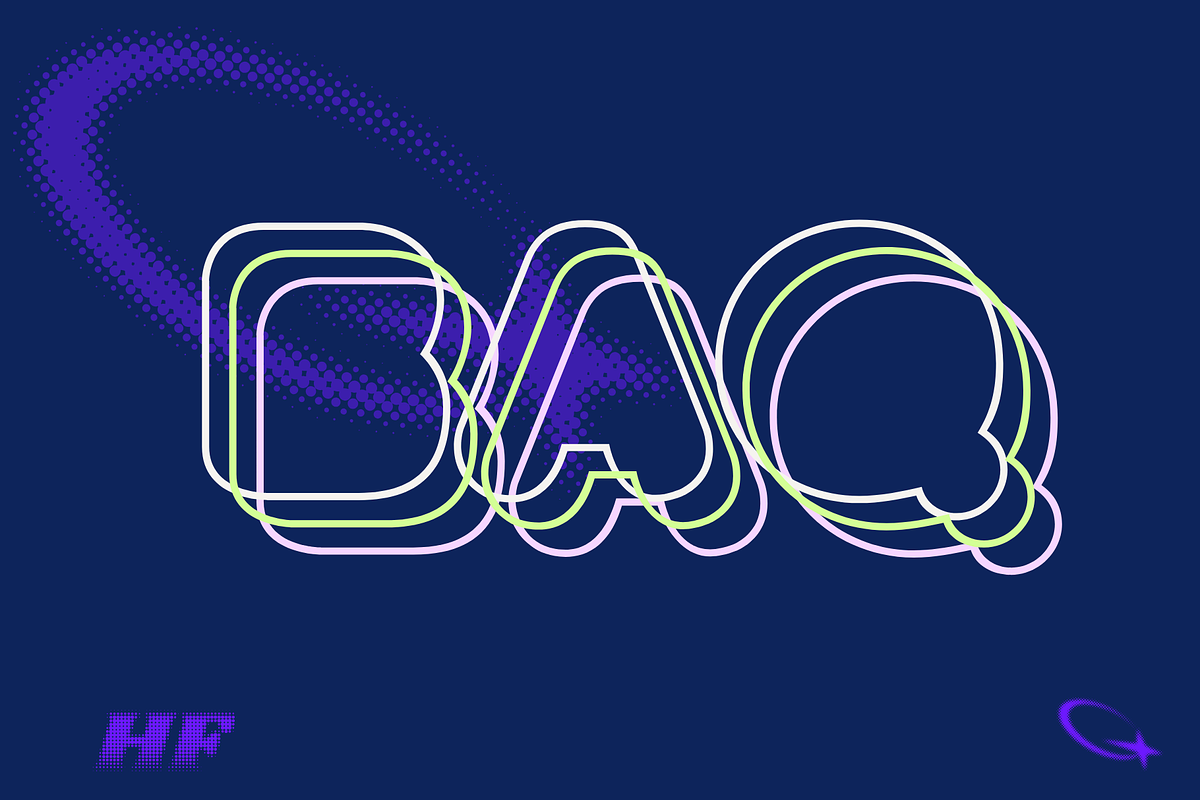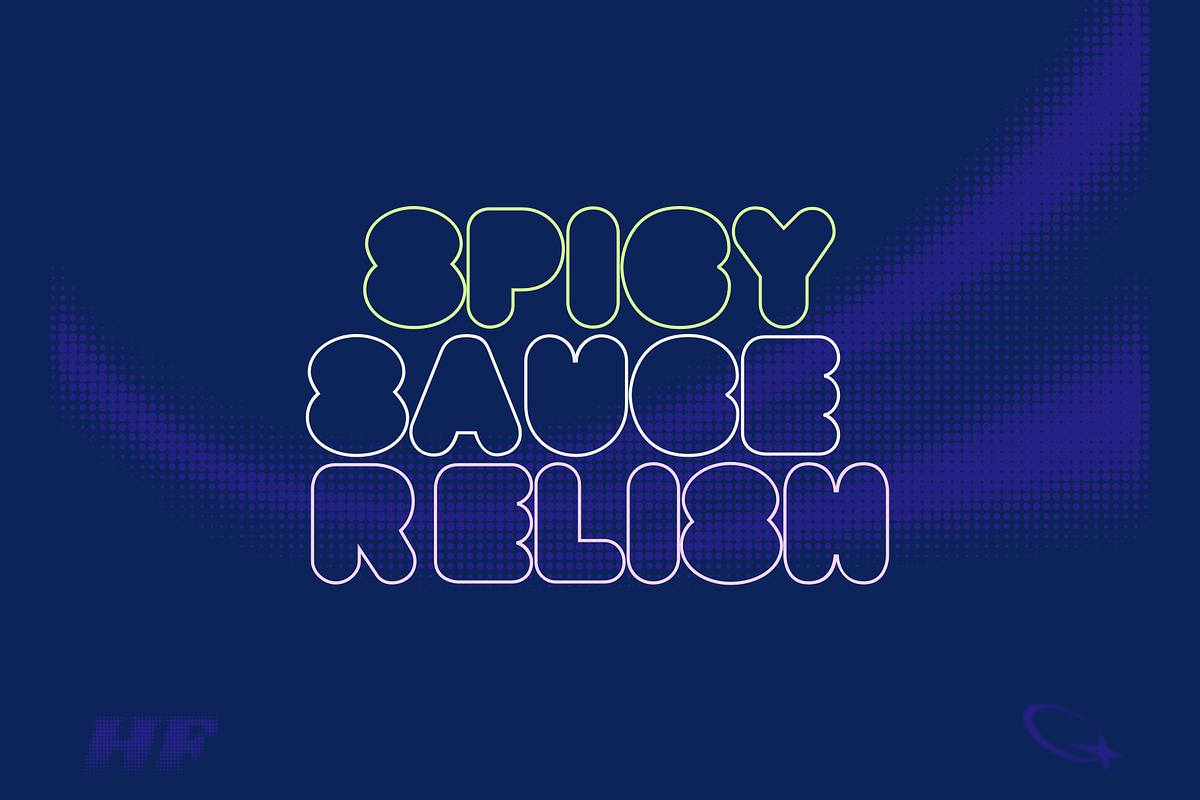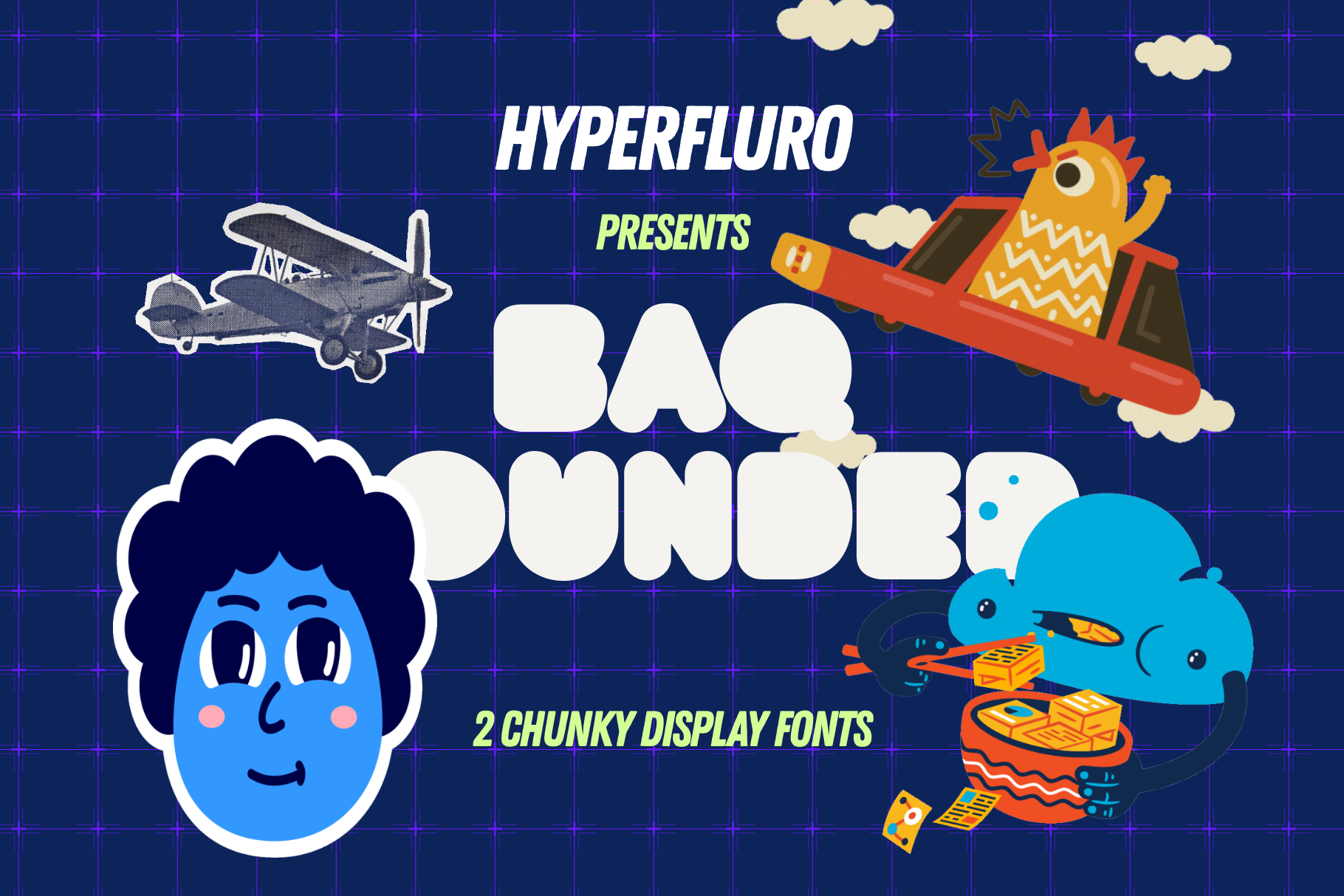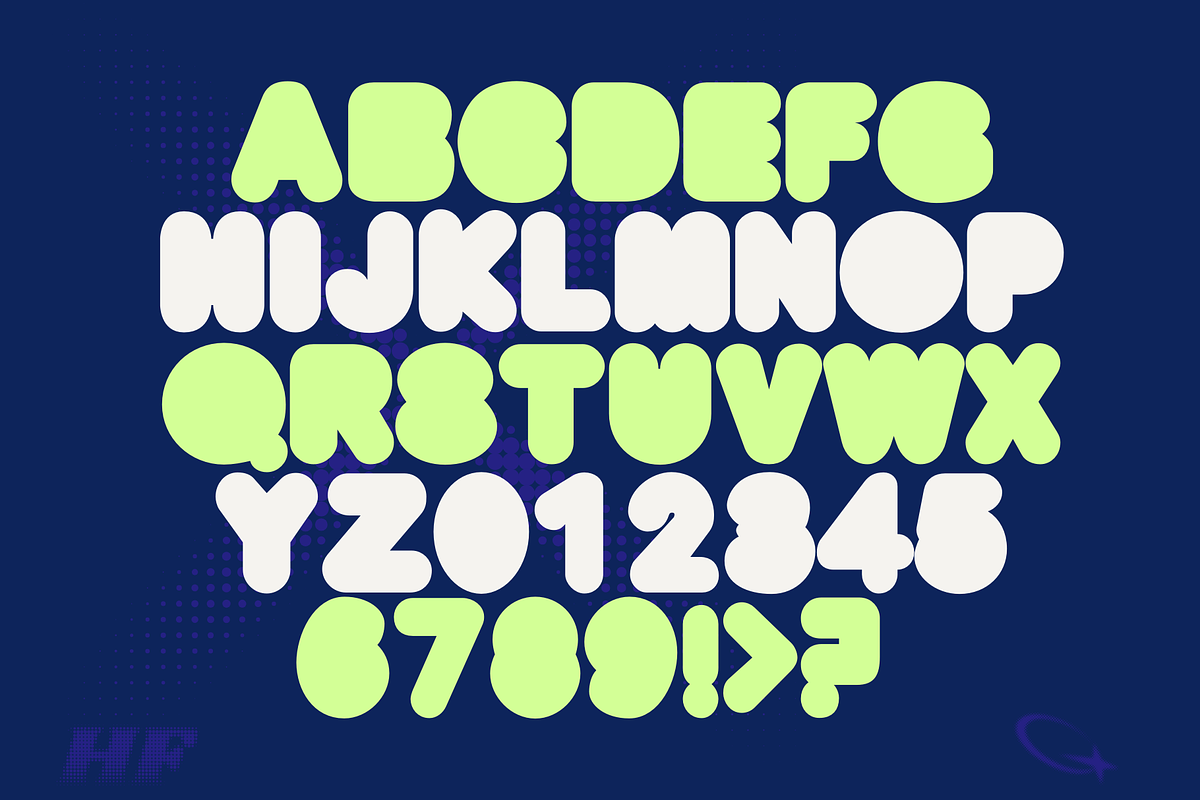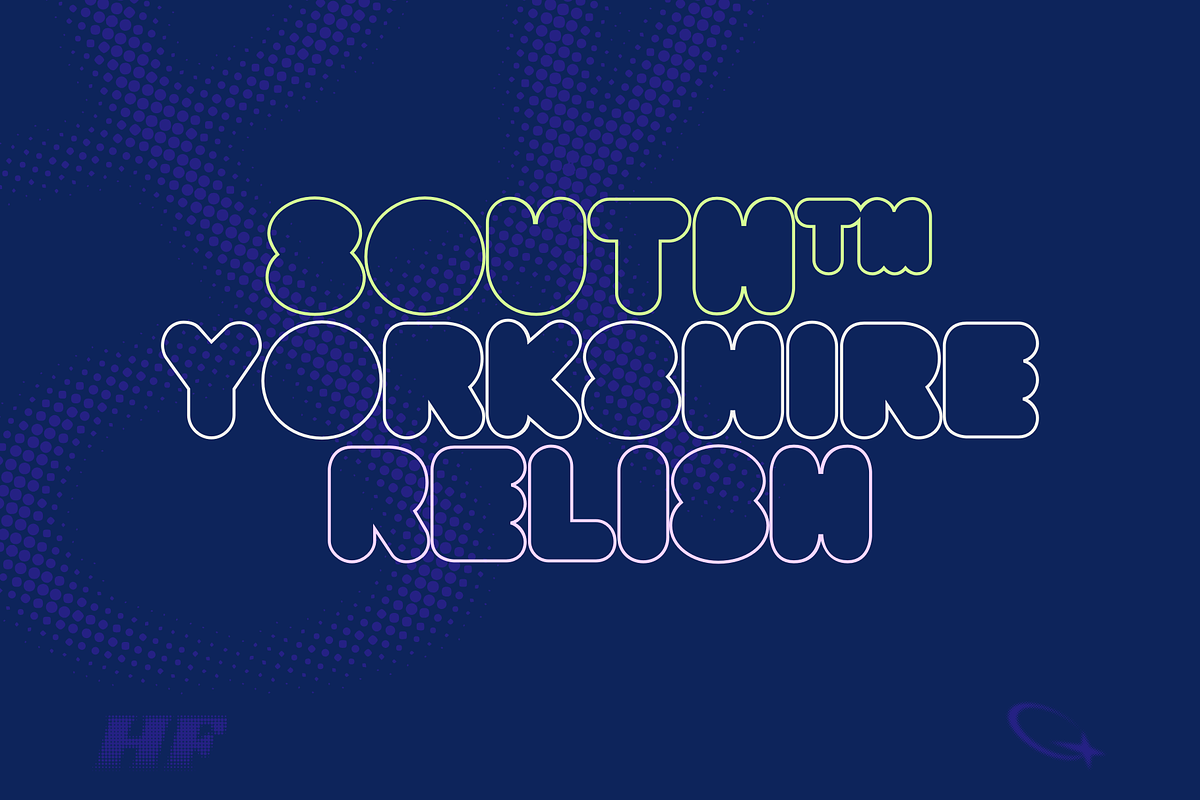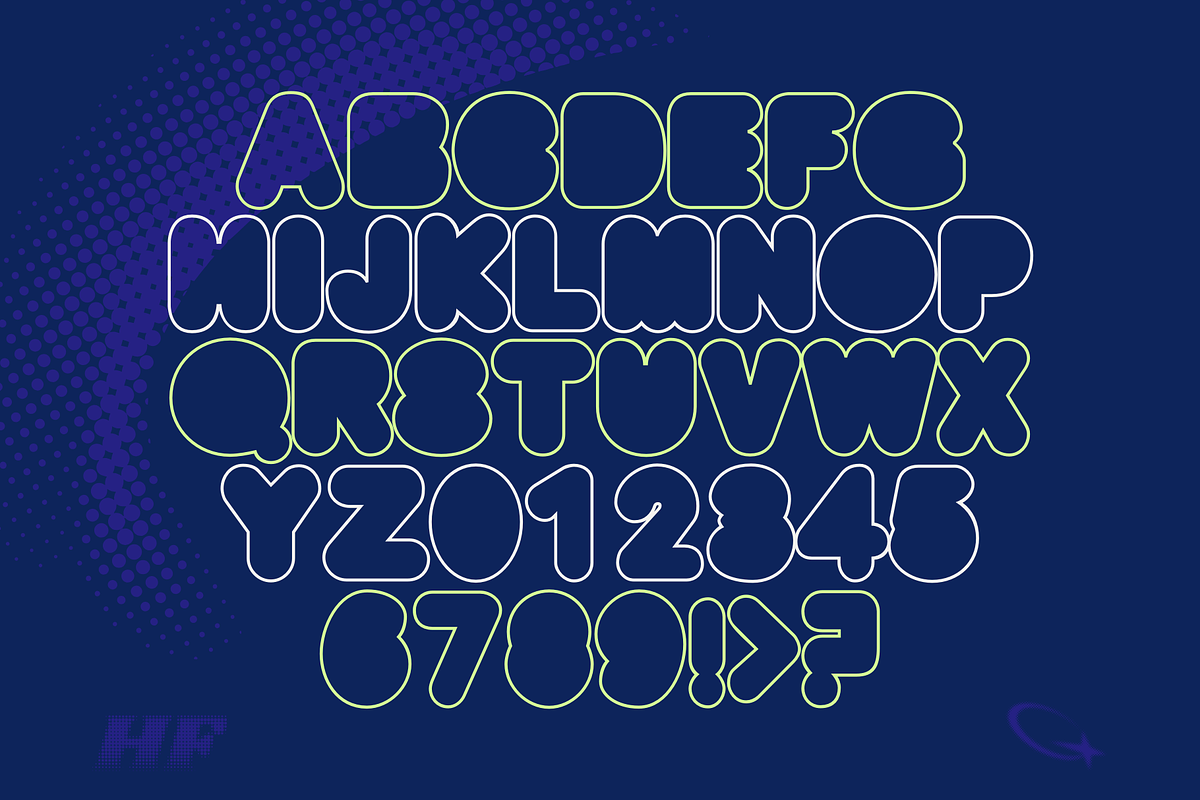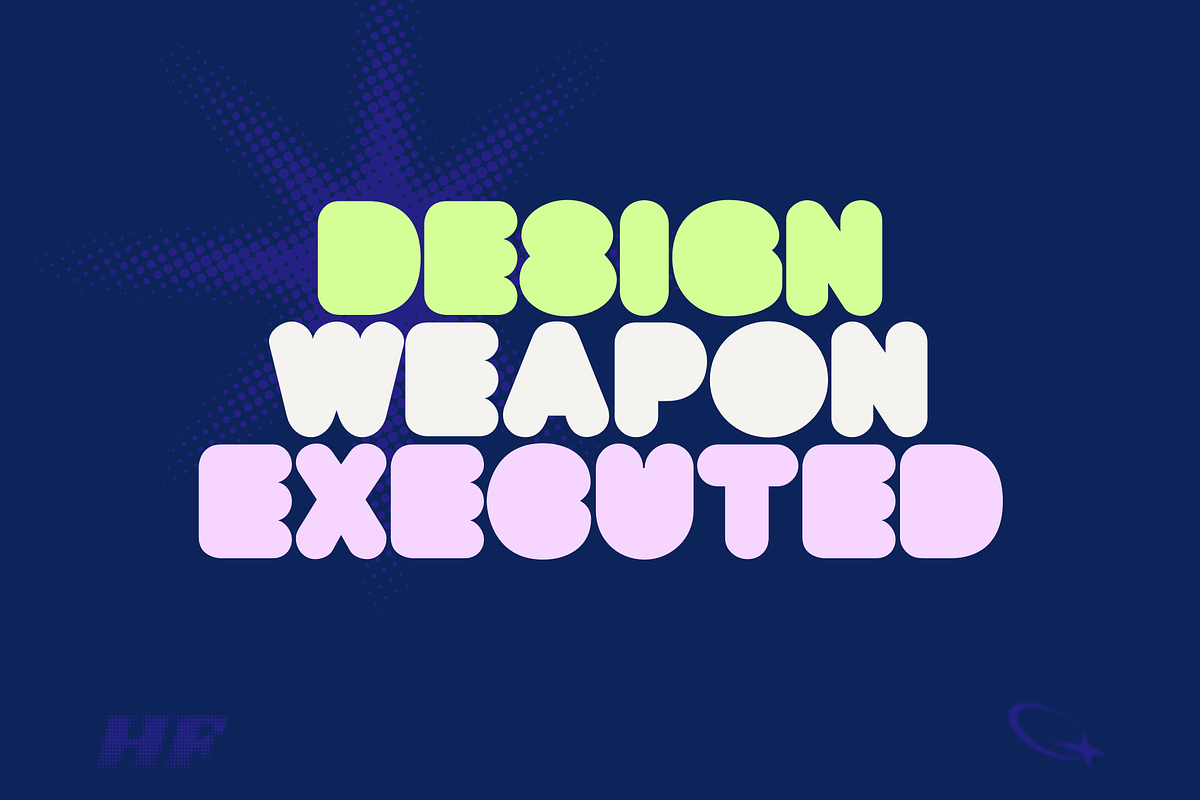
BAQ Rounded 2 Chunky Display Fonts
BAQ Rounded is a bold, blocky font with a playful twist. Its rounded, bulbous letterforms feature subtle indentations that create a unique double image effect one that blends familiar shapes with unexpected curves. This balance between structure and softness makes BAQ Rounded an ideal choice for casual, carefree designs. Whether you're crafting laid-back branding, fun headlines, or eye-catching posters, BAQ Rounded’s approachable aesthetic ensures your message is both relaxed and easy to read. Perfect for projects that demand personality without sacrificing clarity.